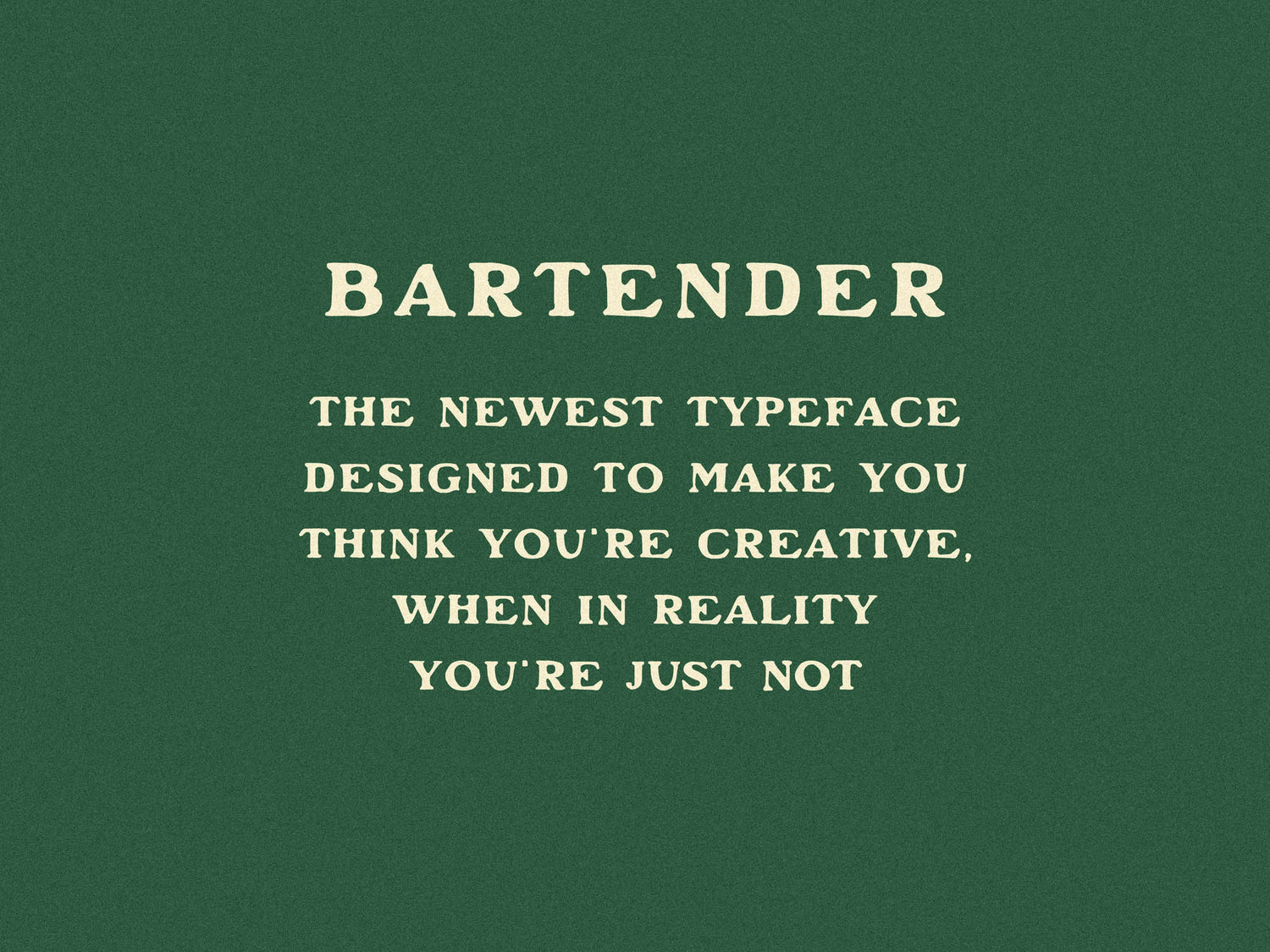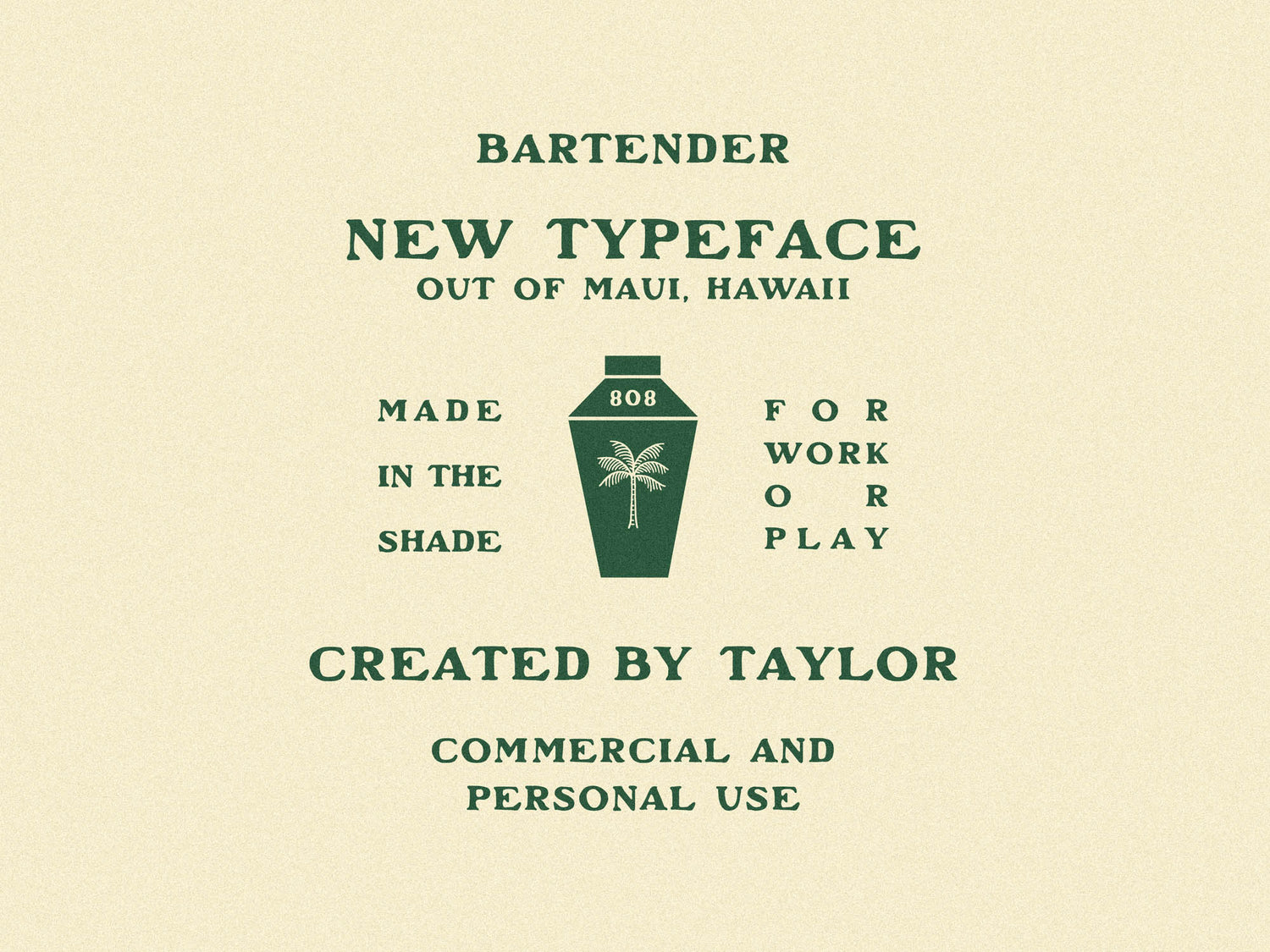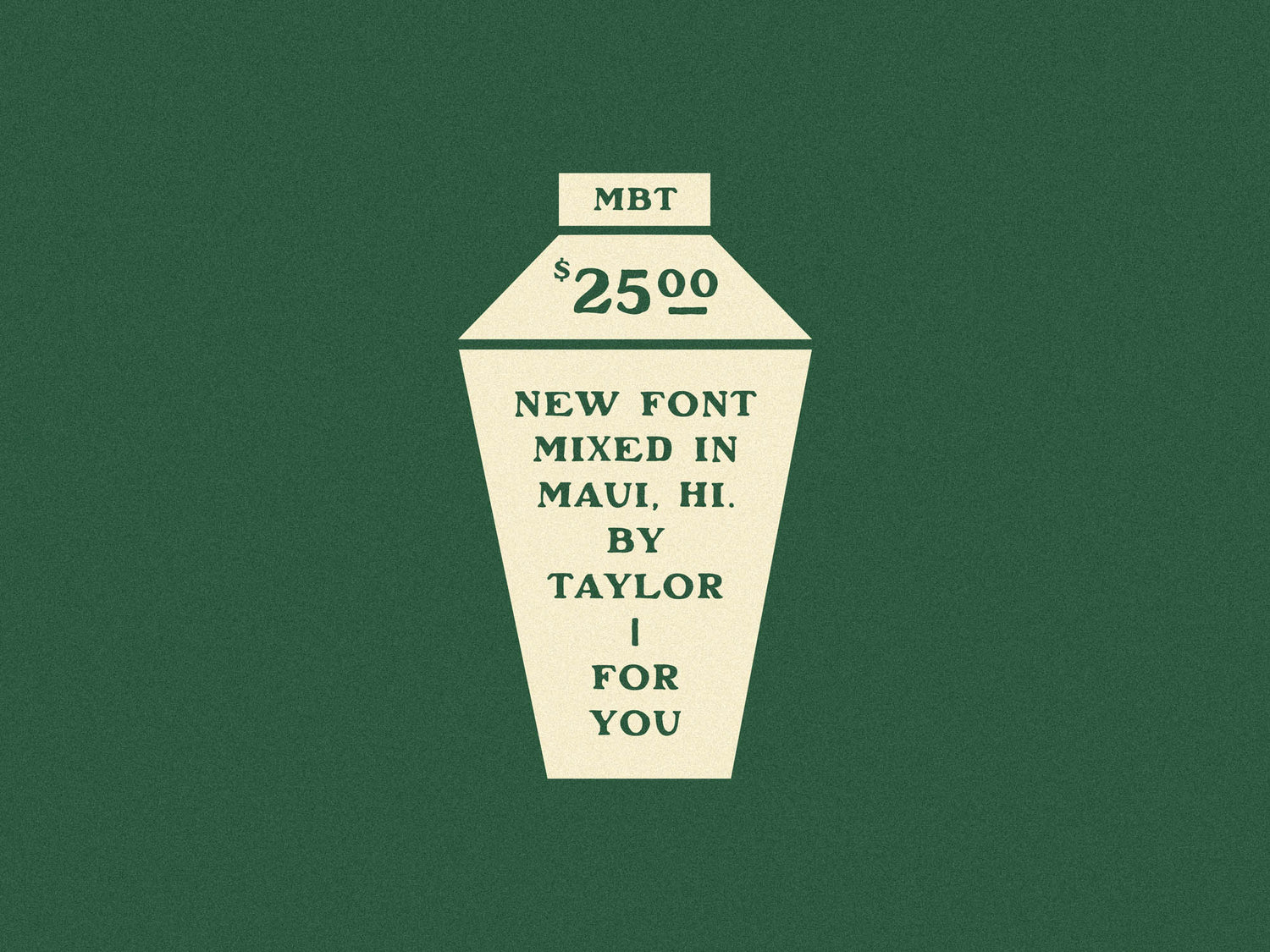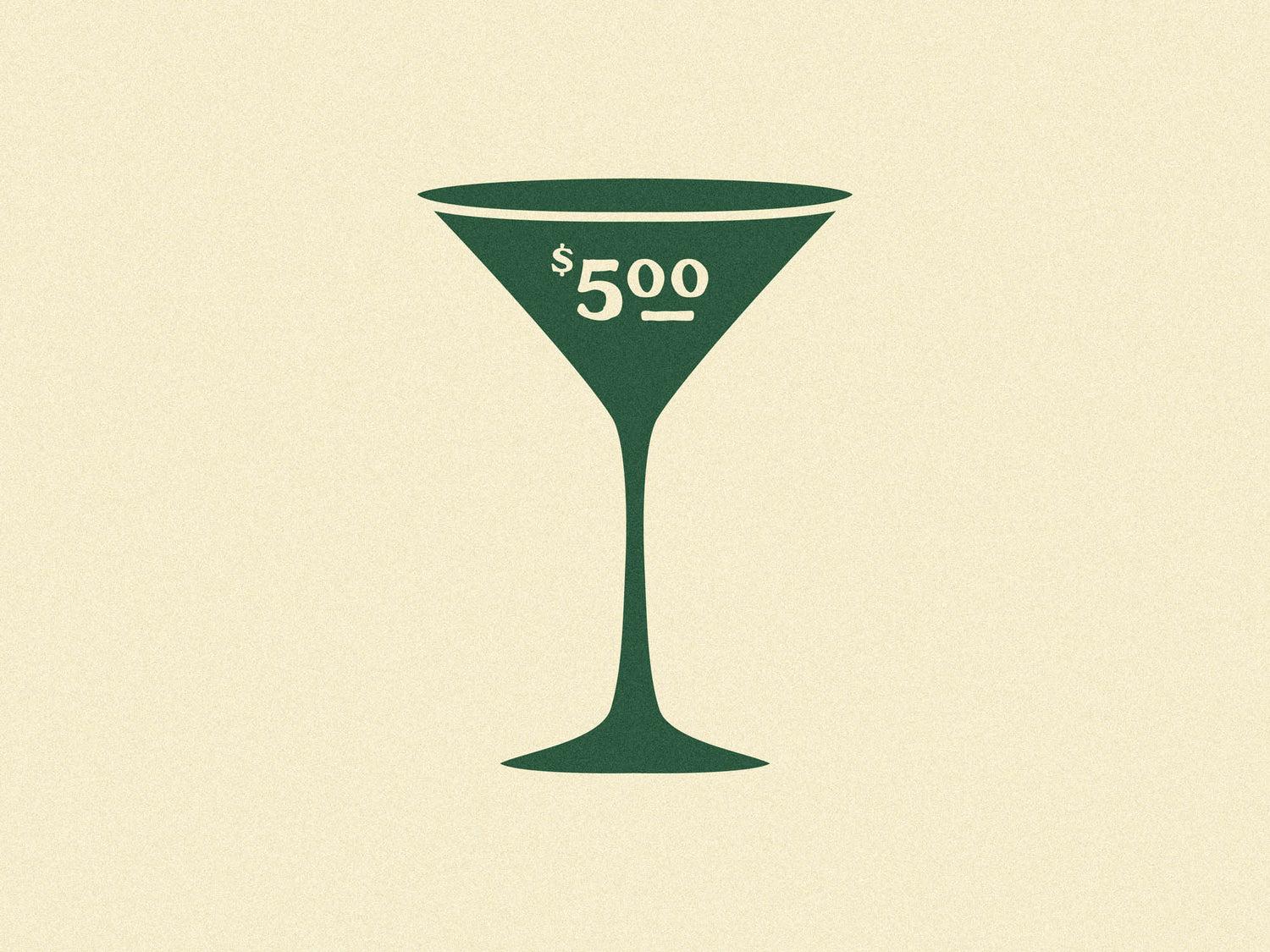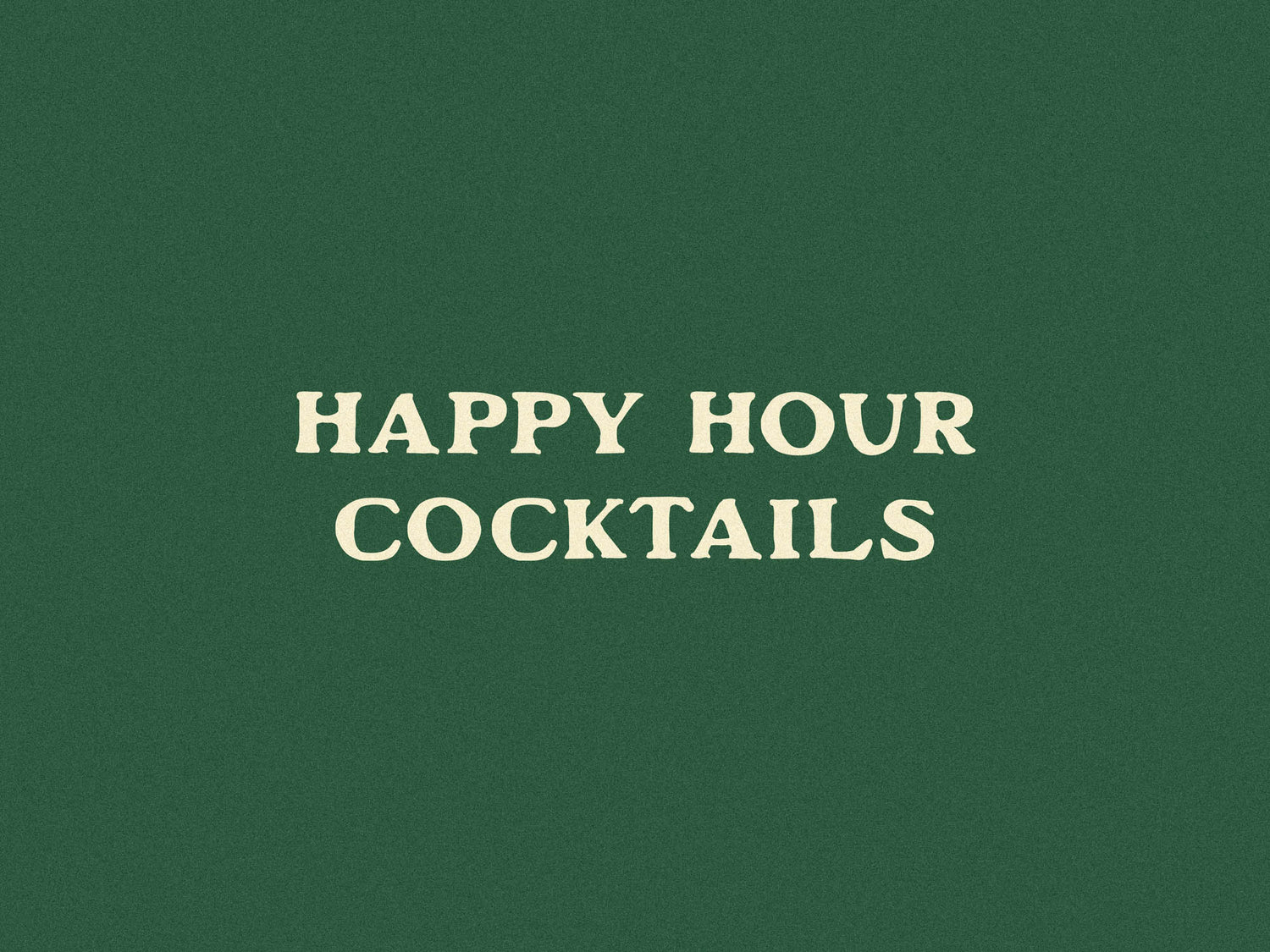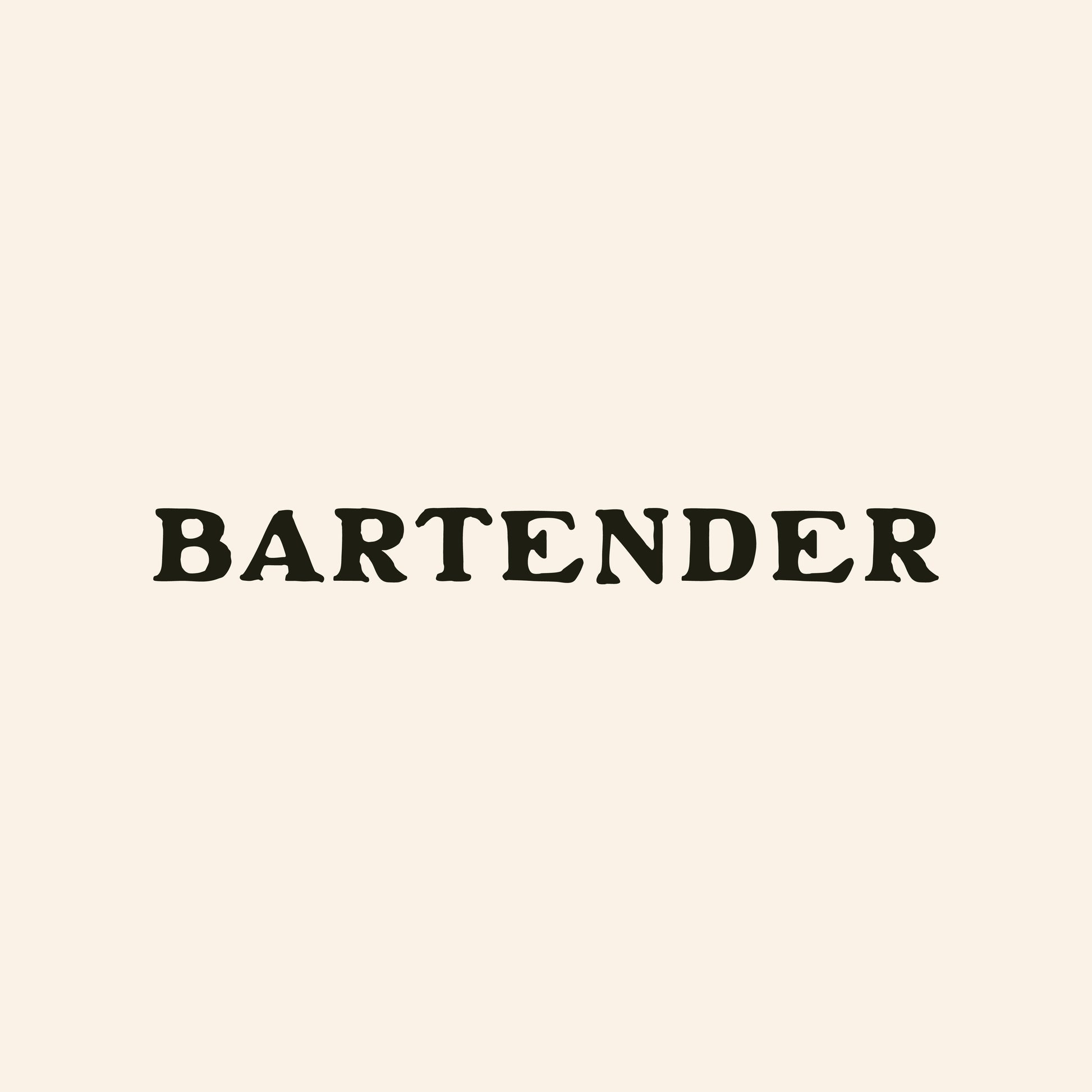
Bartender
Bartender is a serif for people who romanticize decades they never lived through.
It’s got vintage bones, strong curves, and just enough texture to feel human. Use it on packaging, signage, or anything that could benefit from looking like it’s been around longer than you have.